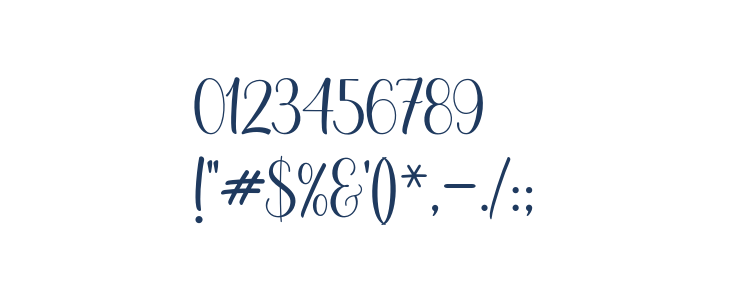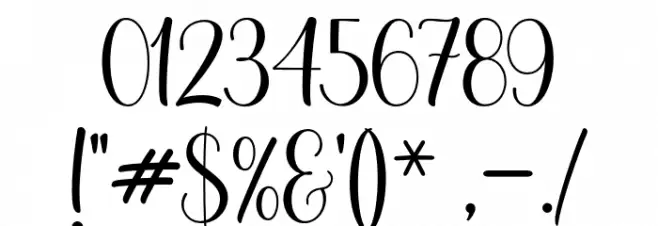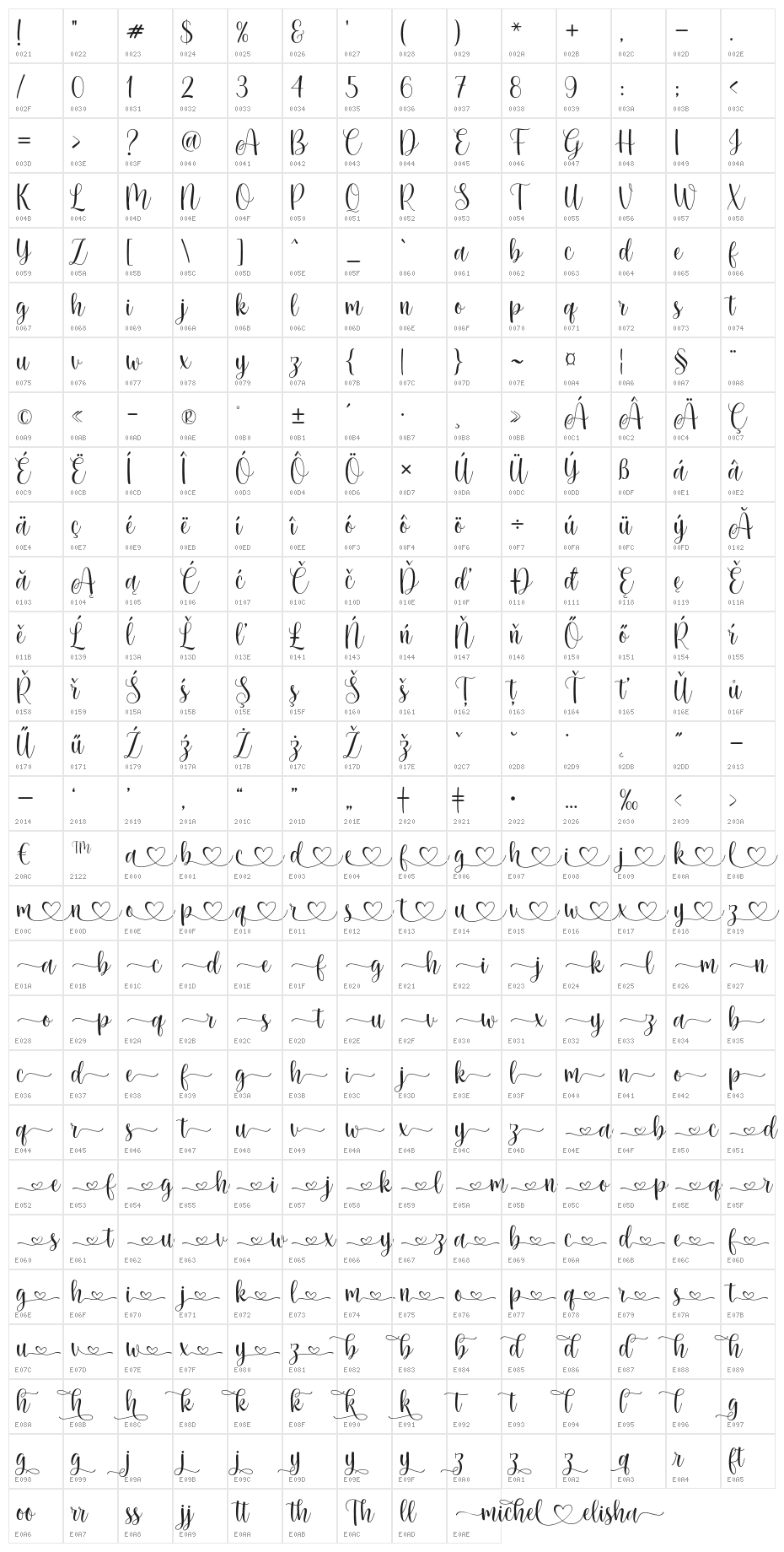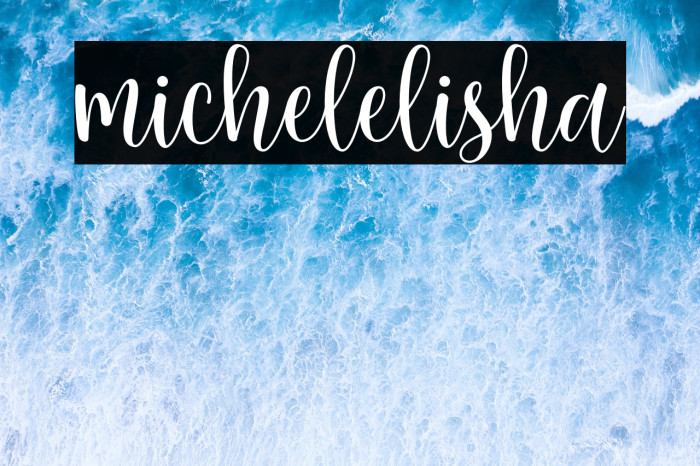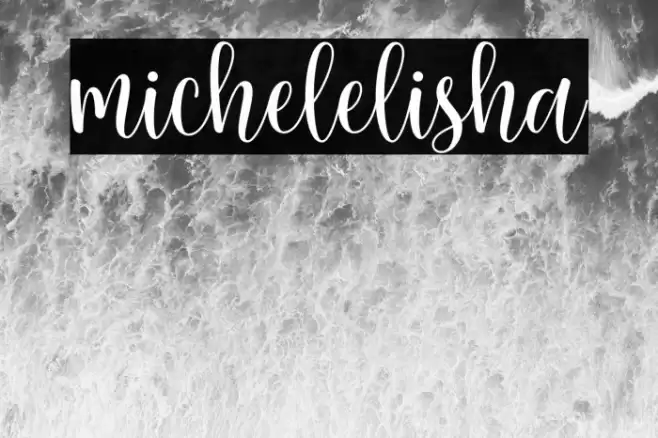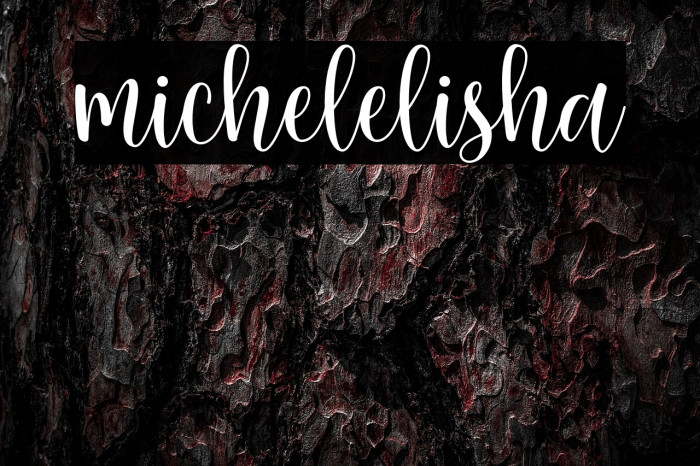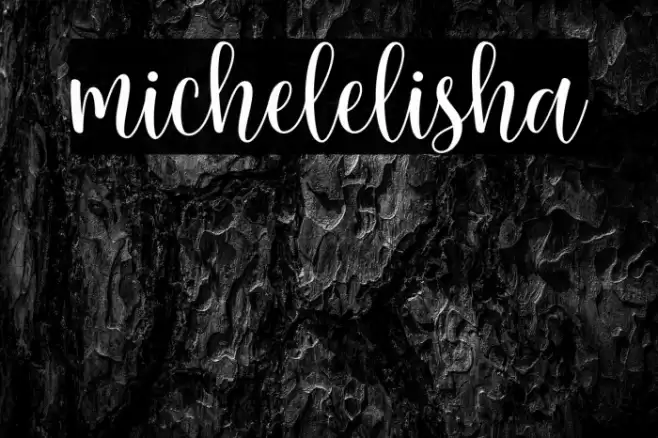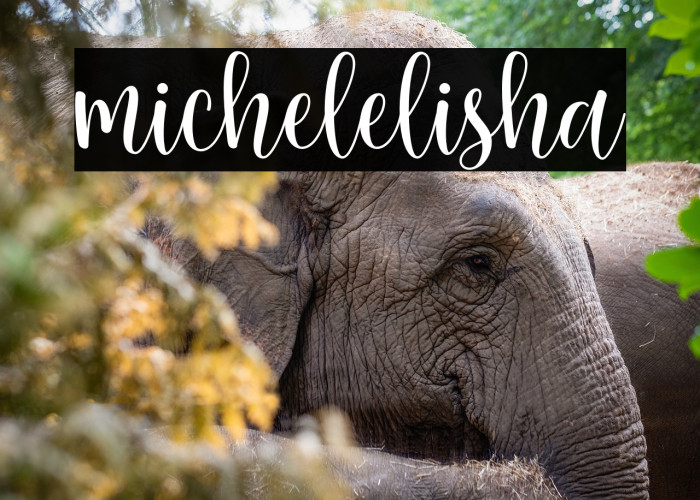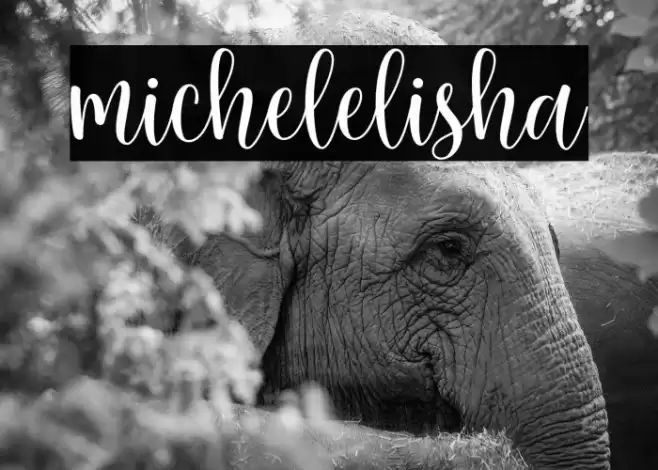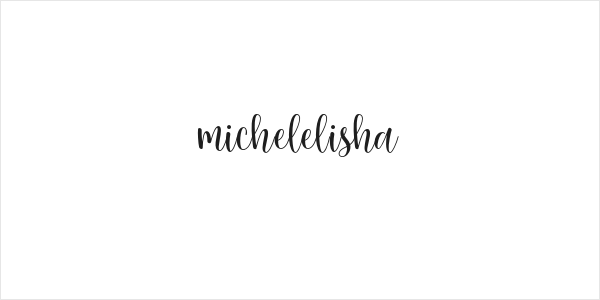
michelelisha Font
michelelisha Description
This font features an elegant and flowing script style, characterized by its smooth, cursive letterforms. The uppercase letters exhibit a graceful, looping design, while the lowercase letters maintain a consistent, fluid appearance. The numerals are stylishly integrated, matching the overall aesthetic with their curvilinear forms. Special characters are thoughtfully crafted, adding to the font's cohesive look. This typeface exudes a sense of sophistication and charm, making it suitable for a variety of creative applications.
| Proposed Projects | Ideal for wedding invitations, greeting cards, branding, and elegant packaging designs. |